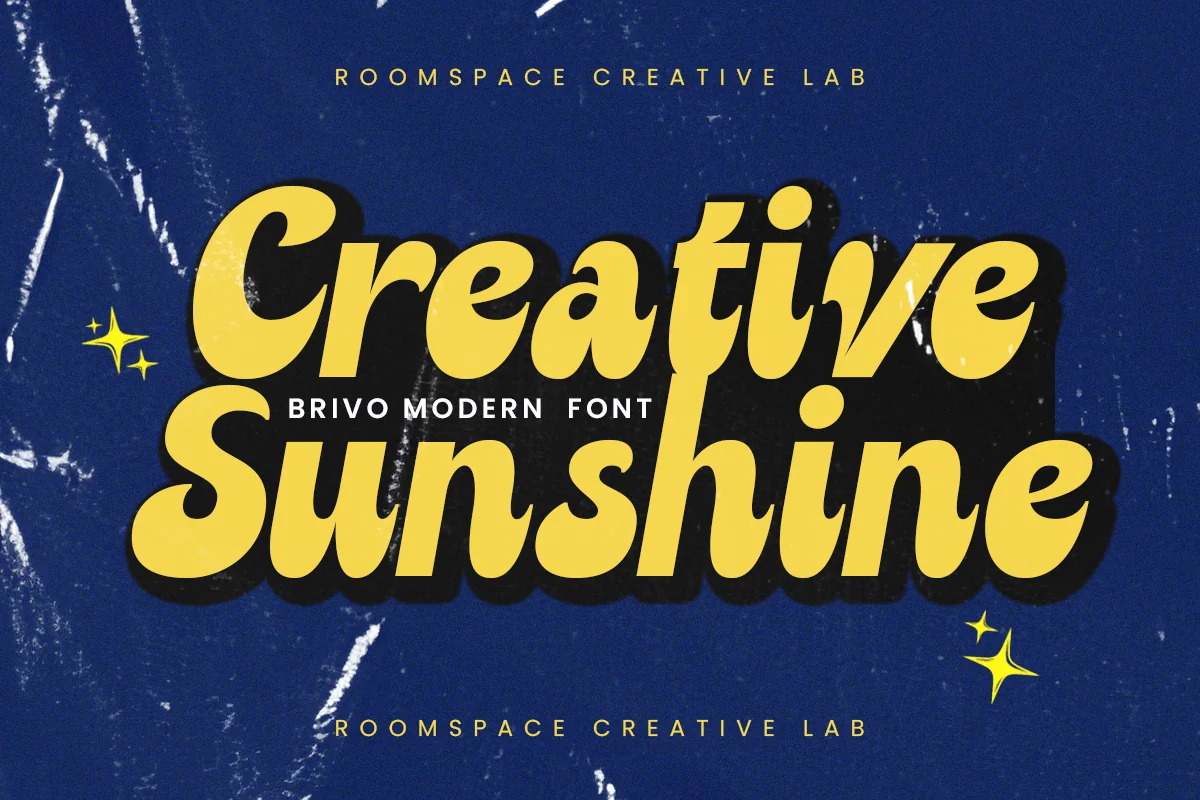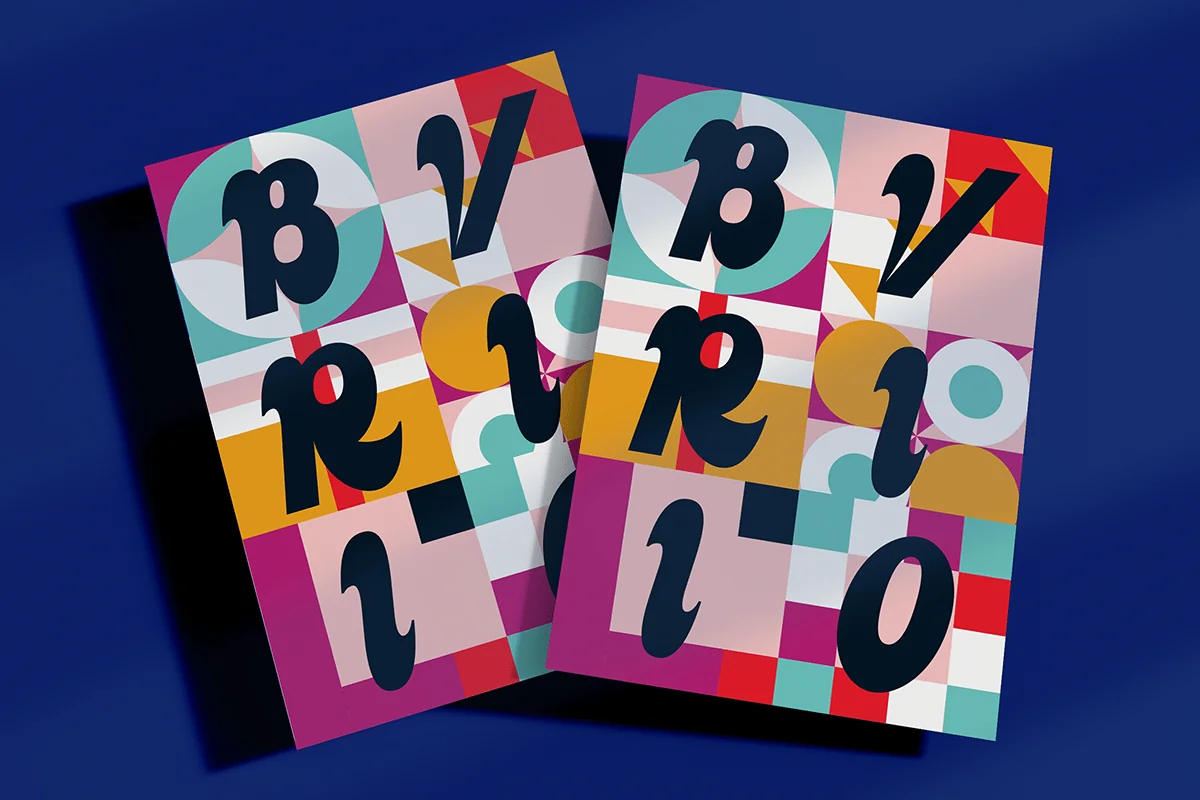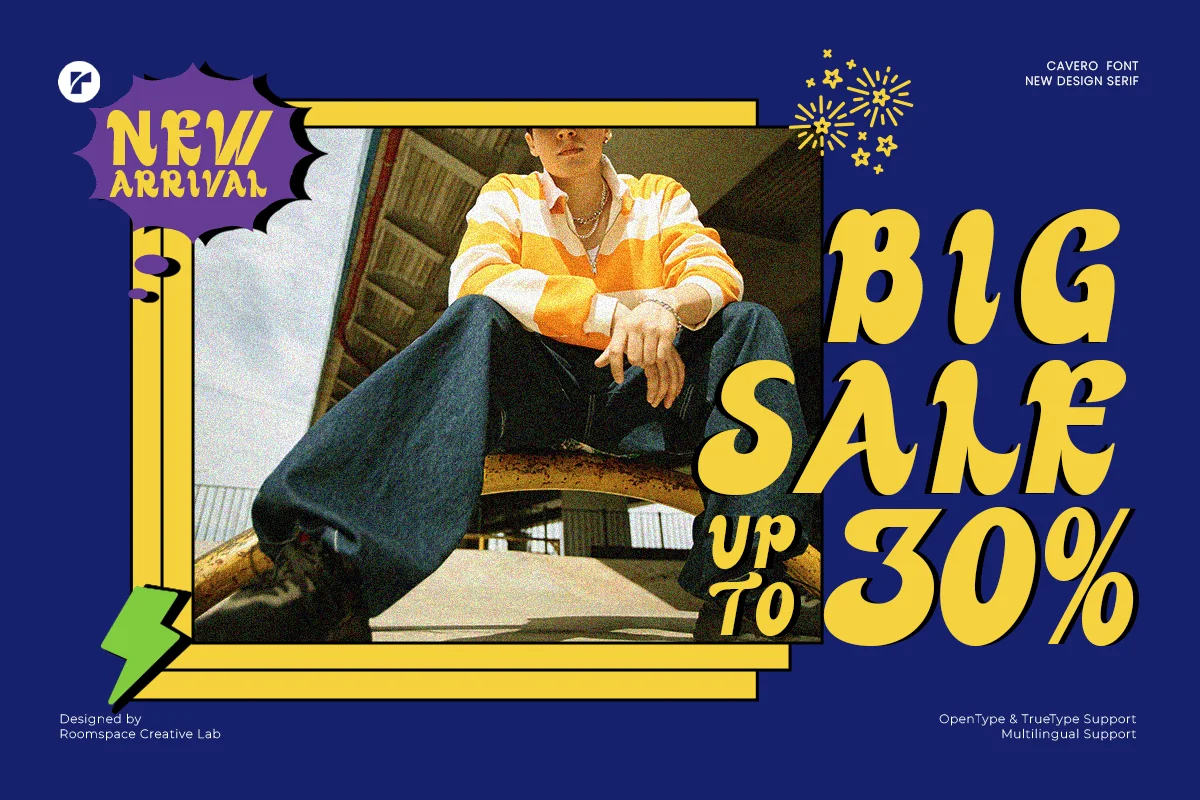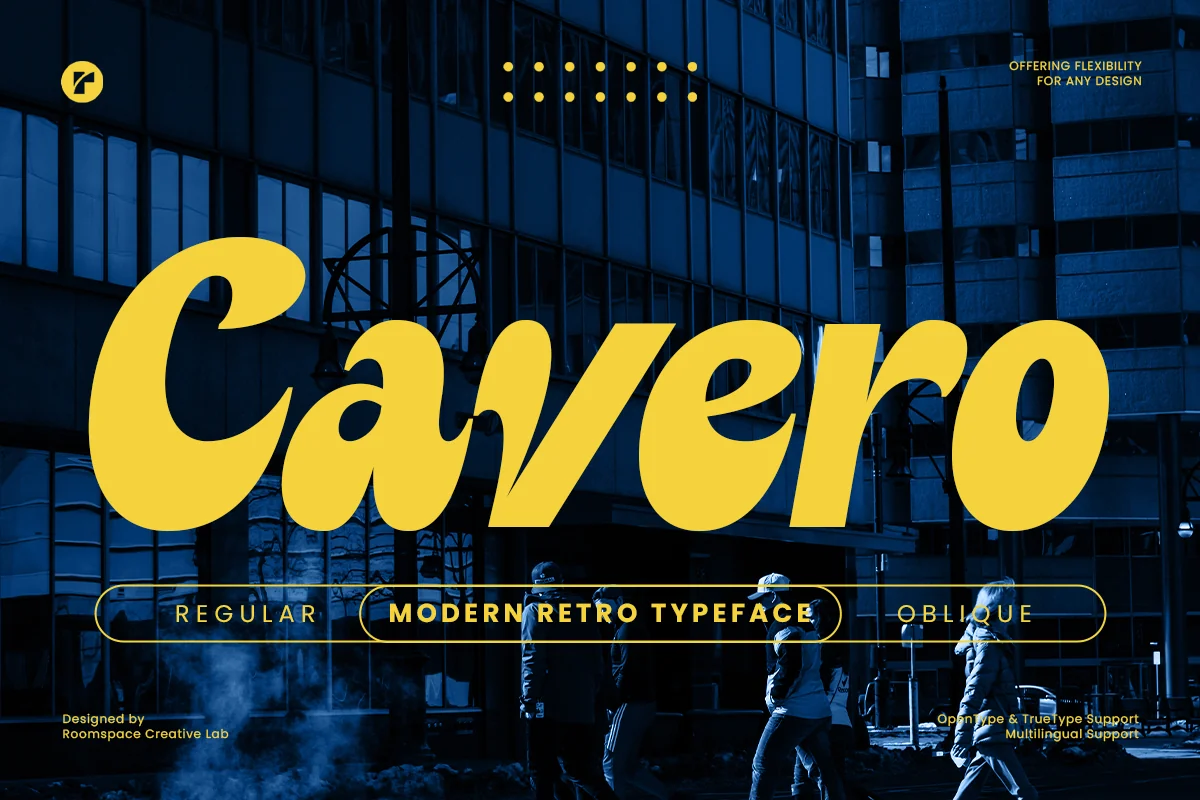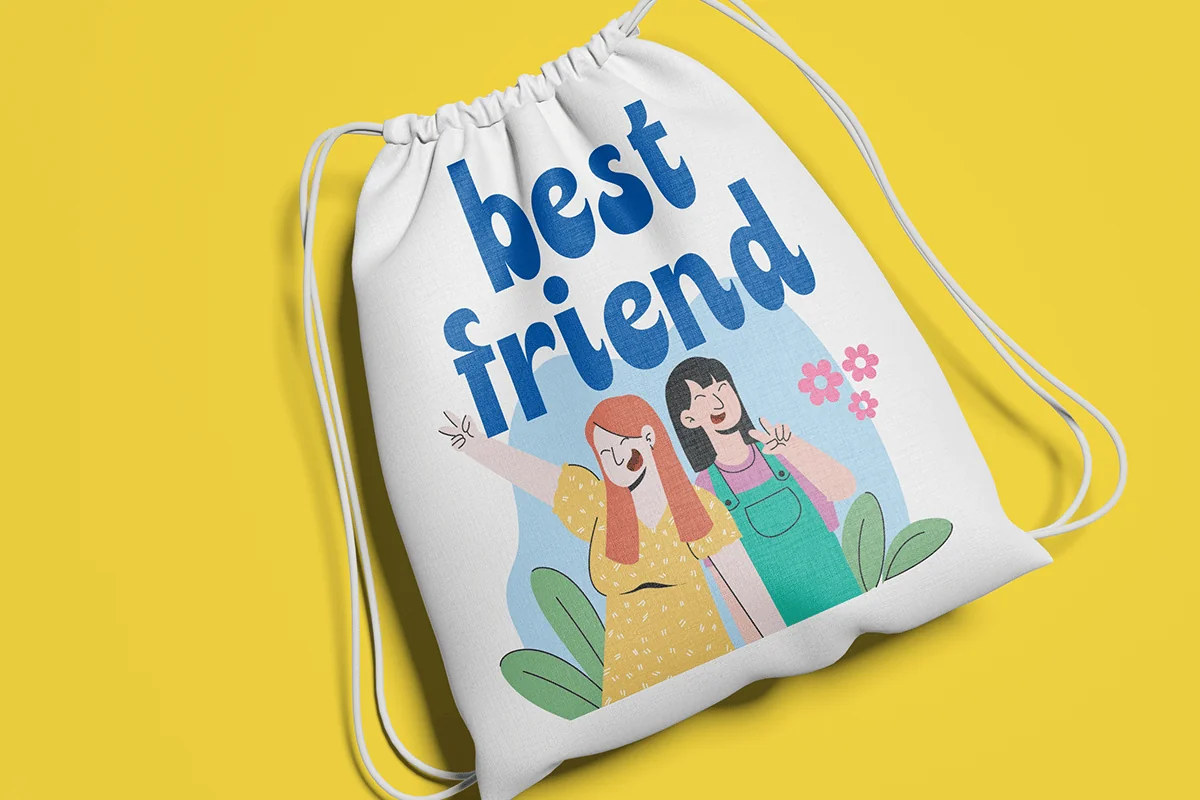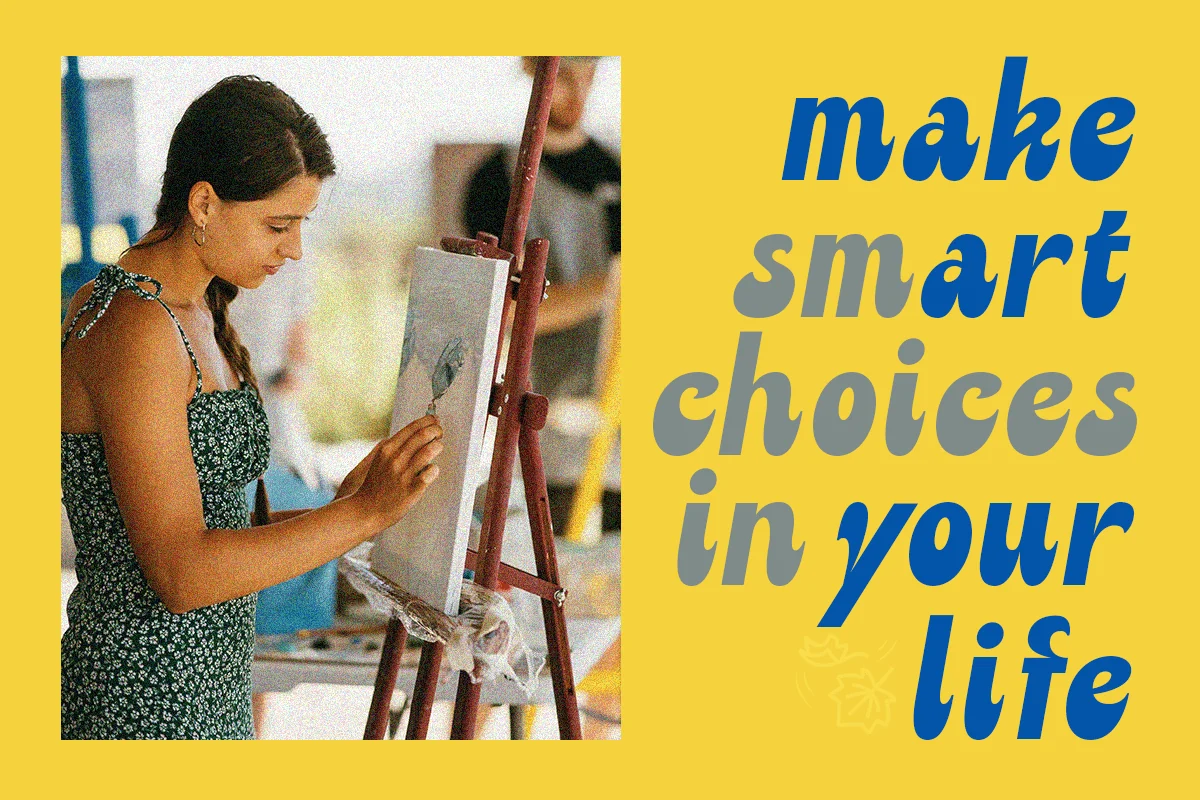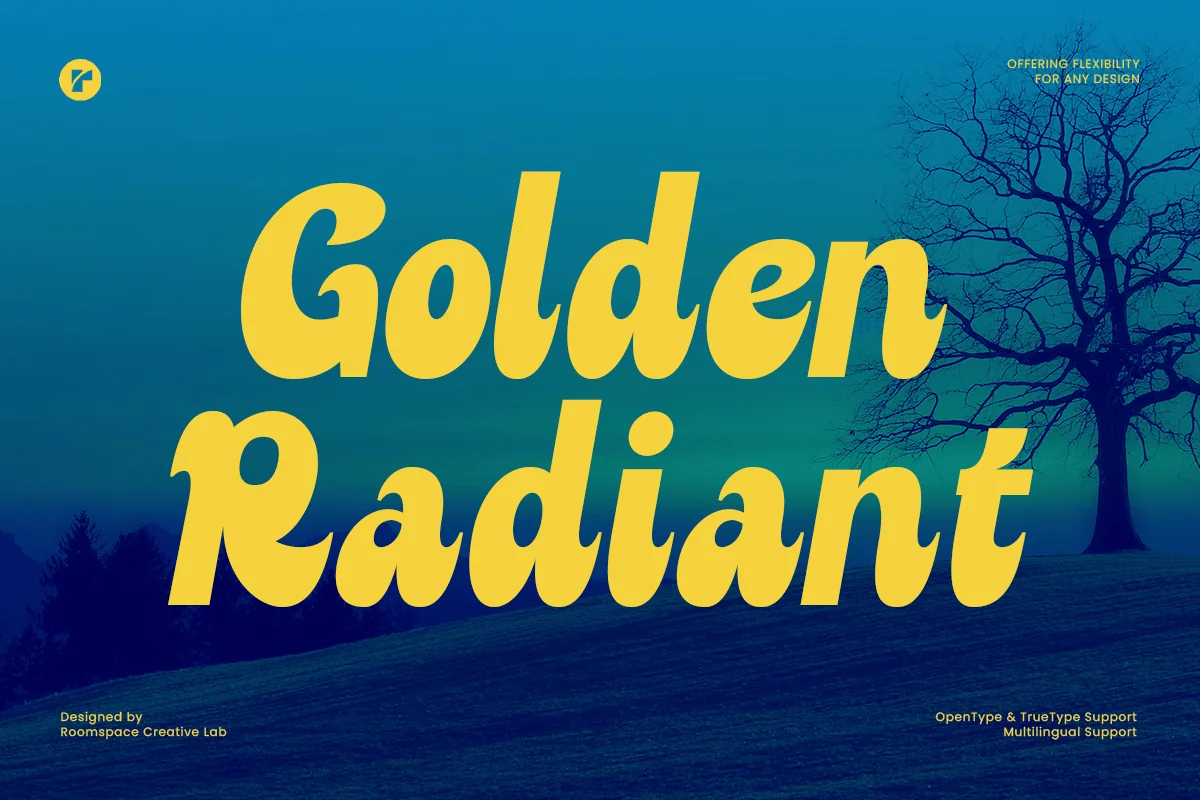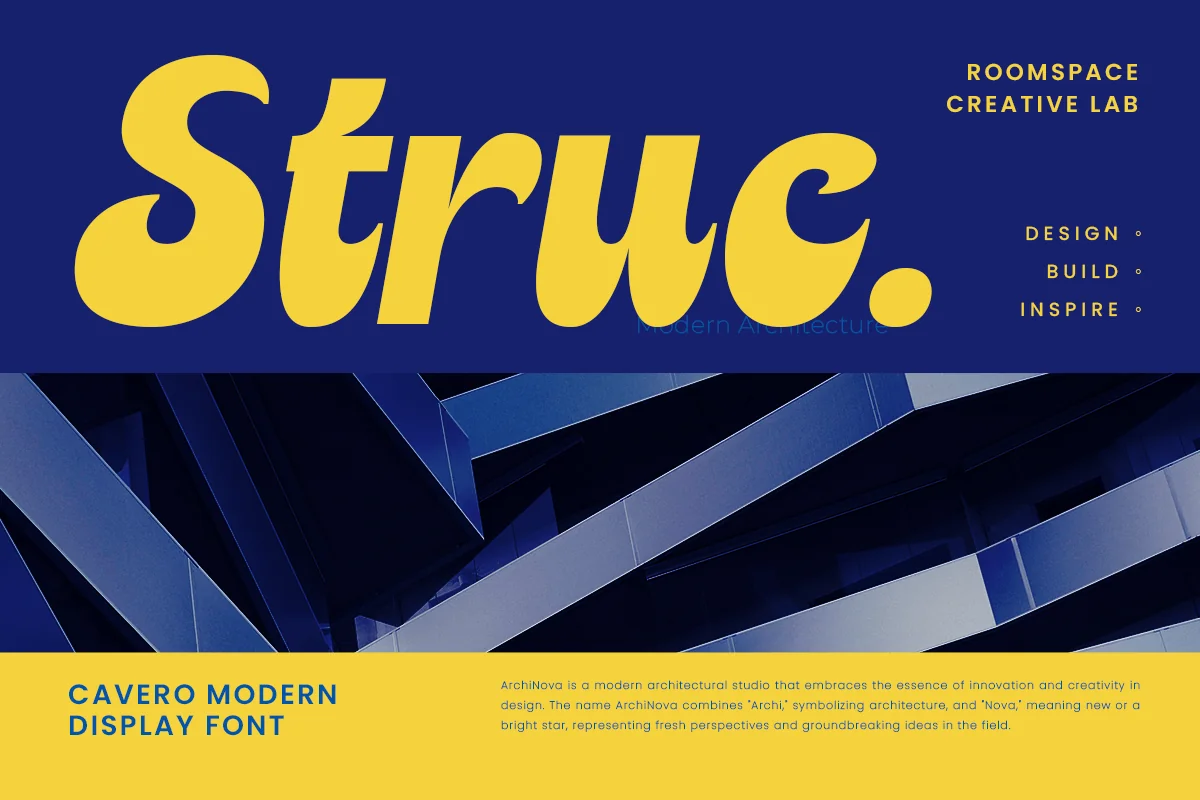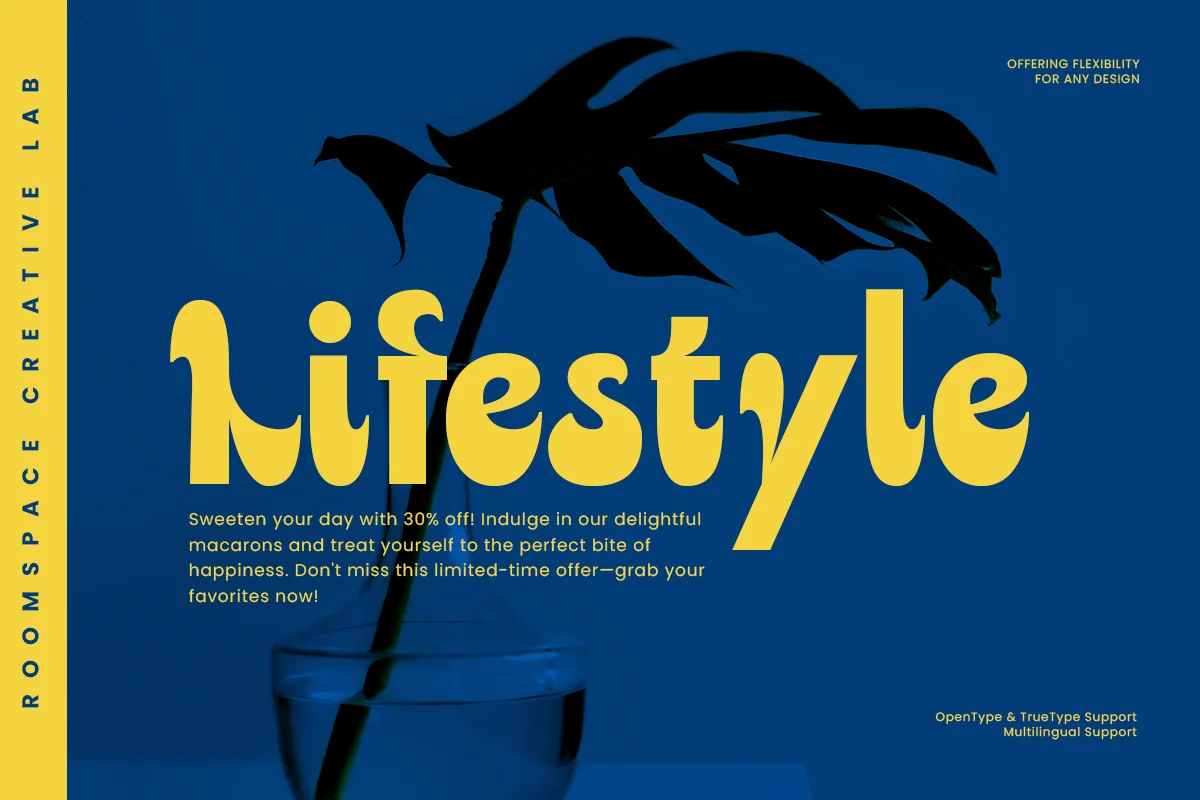
Cavero – Vintage Heavy Logo Font
Cavero, a bold and striking modern retro sans-serif display font that perfectly balances contrast between thick and thin strokes. With its sleek and timeless design, Cavero is ideal for creating eye-catching logos, posters, branding, and advertisements.
Perfect for:
- Creative professionals looking to make bold statements.
- Designers crafting high-impact visuals.
- Businesses wanting unique, standout branding.
This versatile typeface offers:
- Regular and Oblique styles, ensuring flexibility for any design.
- A retro-modern aesthetic that brings a nostalgic yet contemporary feel to your projects.